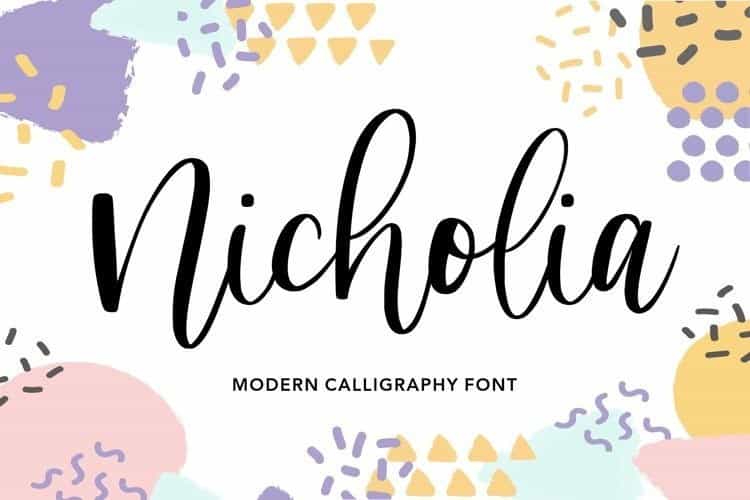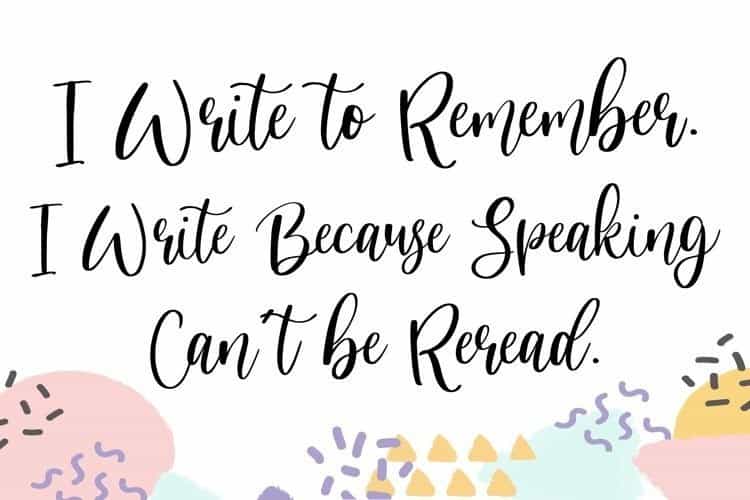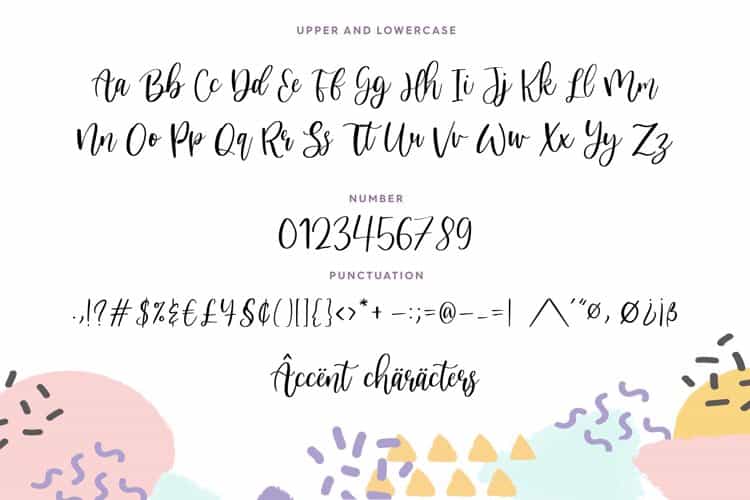
Nicholia is a modern look of Script font, can make your text appear elegant, luxurious, and modern! It’s containing upper & lowercase characters, all punctuation and numerals. Nicholia is marvelous for Invitations, Greeting Cards, Posters, Name Card, Quotes, Blog Header, Branding, Logo, Fashion, Apparel, Letter, Book, Magazine, Advertising Design, Stationery and stick-in.